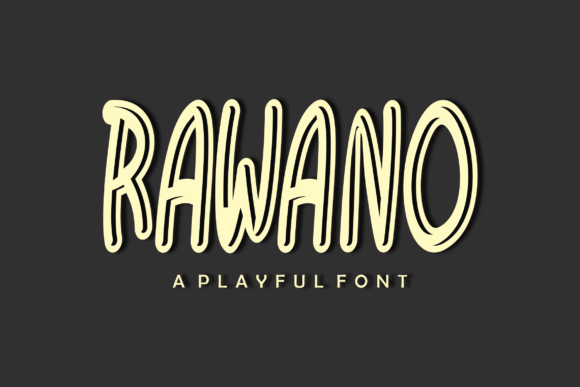
Prepare to be mesmerized by Rawano, the display font that embodies both elegance and playfulness. Its meticulously crafted curves dance across your designs, creating an unforgettable visual experience. Immerse yourself in a world where creativity flourishes, and let Rawano guide you towards extraordinary design feats.
Unleash your inner artist with a font that empowers you to craft stunning signatures, elegant stationery, and captivating logos. Whether you're designing for a heartfelt wedding invitation, inspiring typography quotes, or the cover of a captivating novel, Rawano promises to make your words shine.
Elevate your digital presence with a website header that exudes sophistication and style. Showcase your brand's personality through packaging designs that speak to your audience's hearts. Let Rawano be your creative companion, guiding you towards designs that resonate and make a lasting impact.
With Rawano, every project becomes a masterpiece, a reflection of your unique artistic vision. Embrace the power of this extraordinary font and witness the transformation of your designs into works of art that captivate and inspire. Let Rawano ignite your creativity and elevate your designs to new heights.